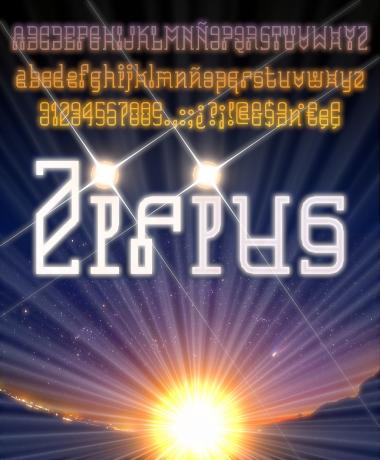
An old idea I had to get out of my head. I hope you like it.
Mayan Science Fiction! Me likes! :-) 10/10
Hey Elmo, this one proves you can be also really excellent in more adventurous and unusual paths, here making an improbable mix of futuristic, alien and some sort of western feel. What a pity you had to make polygonal curves due to the limits of FS. Maybe Williaum, our magician of composites, could find a solution avoiding straight lines in that 3x3 cases arc configuration...
Really cool mix of the past and the future! 10/10
I like the sample too!
Hey, I see a mistake on the sample, there are two eights on the sample.
It m ay not be the most legible font, but it has masses of character. 10/10
I didn't even noticed that it didn't use curves, but it surely could (and filters would be useful just to make it easier to draw w).
The simpler, the better ) I like it. Thnx
@riccard0: Thanks, pal; I hope to see the 2013! And I'll try to get the right curves for this font, sure.
@ne: Dear compañero, you're right about my difficulties with the arcs in the corners... I hope to find one better solution for the font.
@Yautja, @cablecomputer: Thanks a lot, amigos. @cable: thank you once again, 4 eyes are better than 2... there are two 8s.
Actually I started trying to reproduce it using "macaroni" bricks for the curves. Using 2x2 filters, I cannot use a clone, and had to go back and forth betweeen two different fontstructor windows.
One curve which is worst that the one obtainable with 1x1 filters is the top-right-of-cell internal curve. You could see three possible alternatives on 3 and 8.
If you think it could be useful for you, please clone it. Then I will take it down.
Very quirky; very cool.
Makes me think of that move "Cowboys vs Aliens."